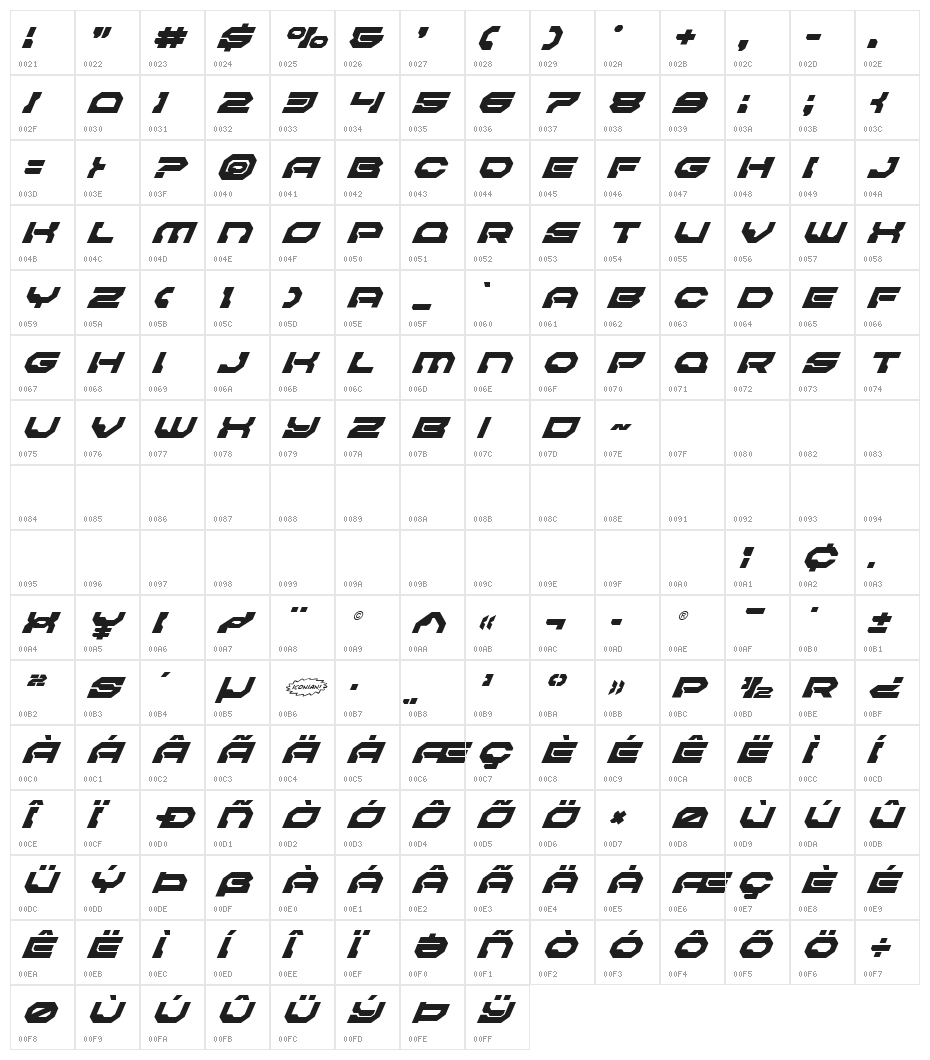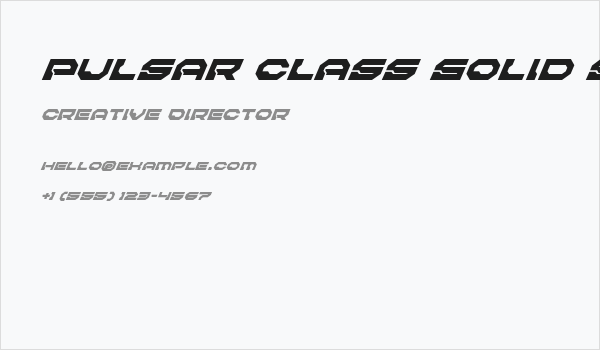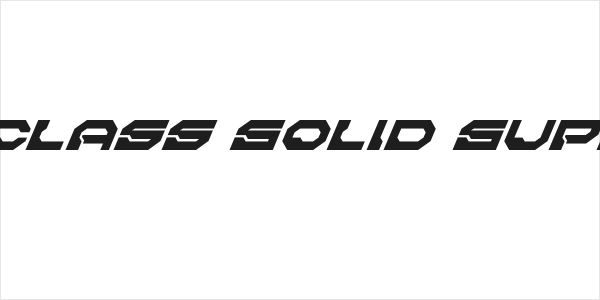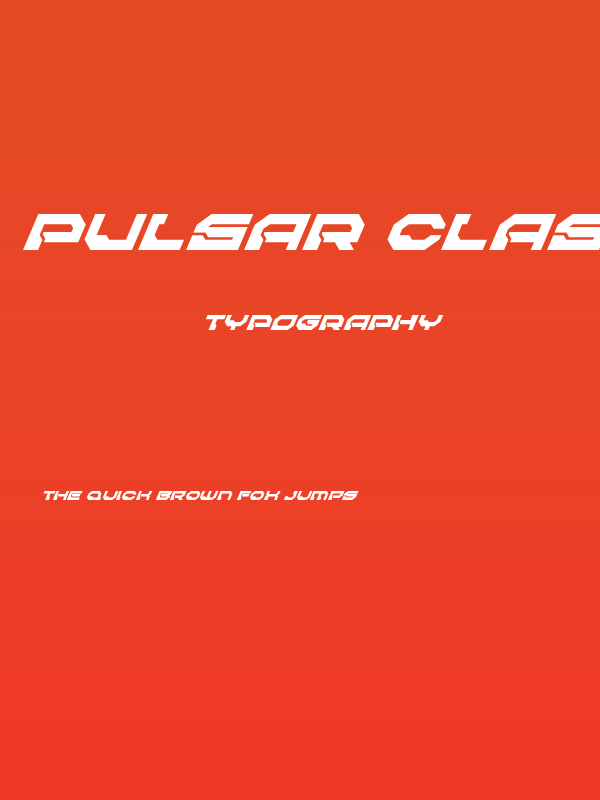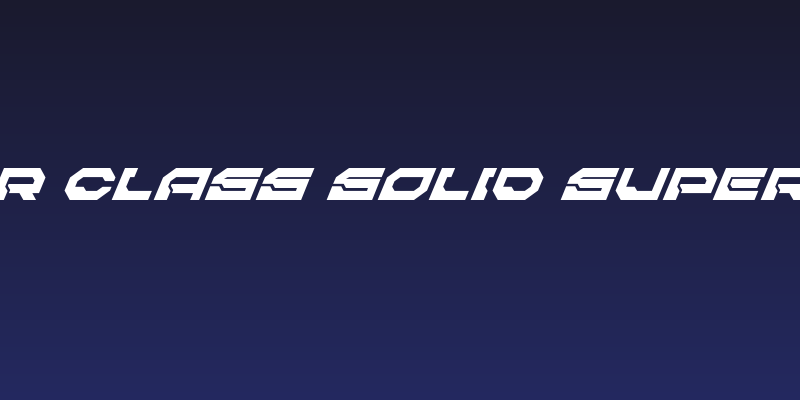
Pulsar Class Solid Super-Italic Font
Pulsar Class Solid Super-Italic Description
This font features a bold, futuristic design with sharp angles and a dynamic slant, giving it a sense of motion and energy. The characters are solid and robust, with a geometric structure that emphasizes a modern, tech-inspired aesthetic. The uppercase and lowercase letters maintain a consistent style, with the italicization adding an extra layer of sleekness. The numerals and special characters follow the same design principles, ensuring uniformity across all glyphs. This font is ideal for projects that require a strong, impactful visual presence.
| Proposed Projects | Ideal for sci-fi themed designs, technology branding, video game titles, and dynamic posters. |